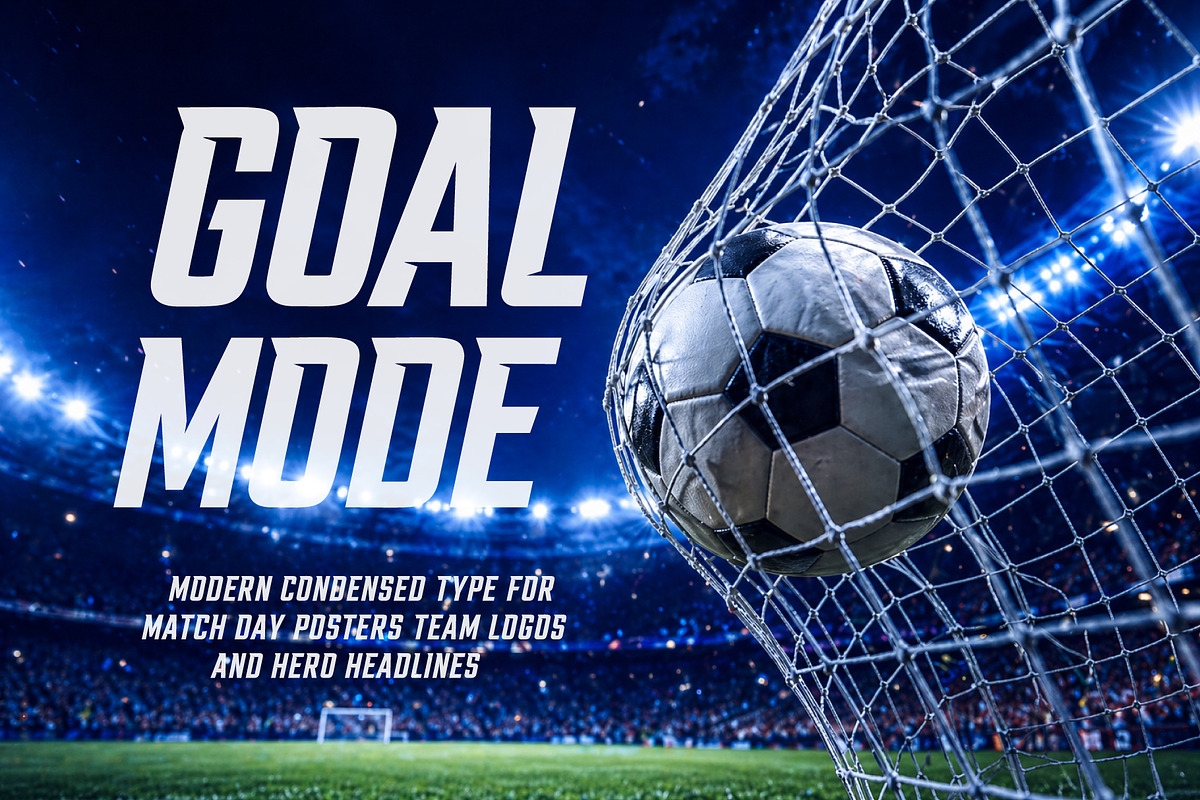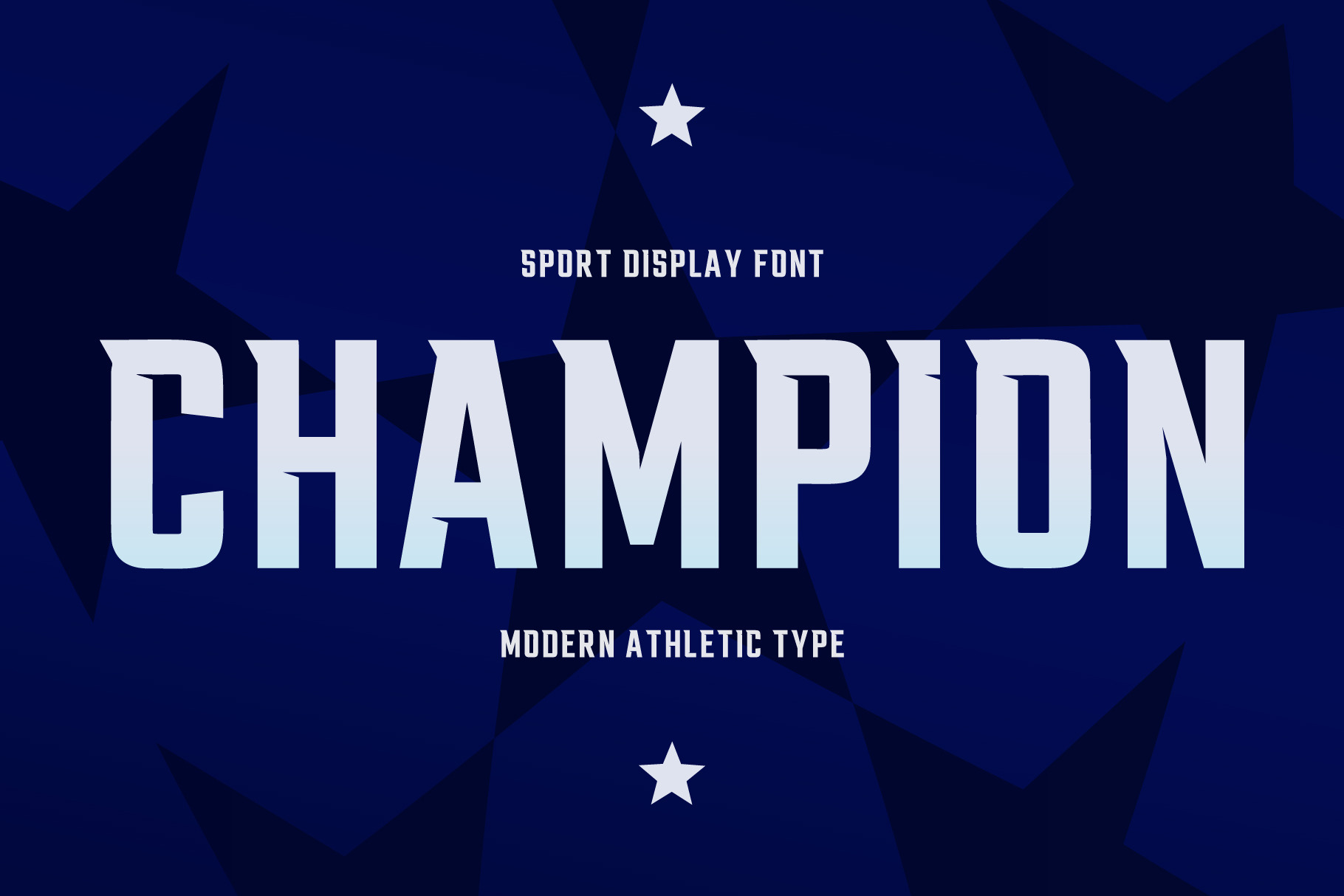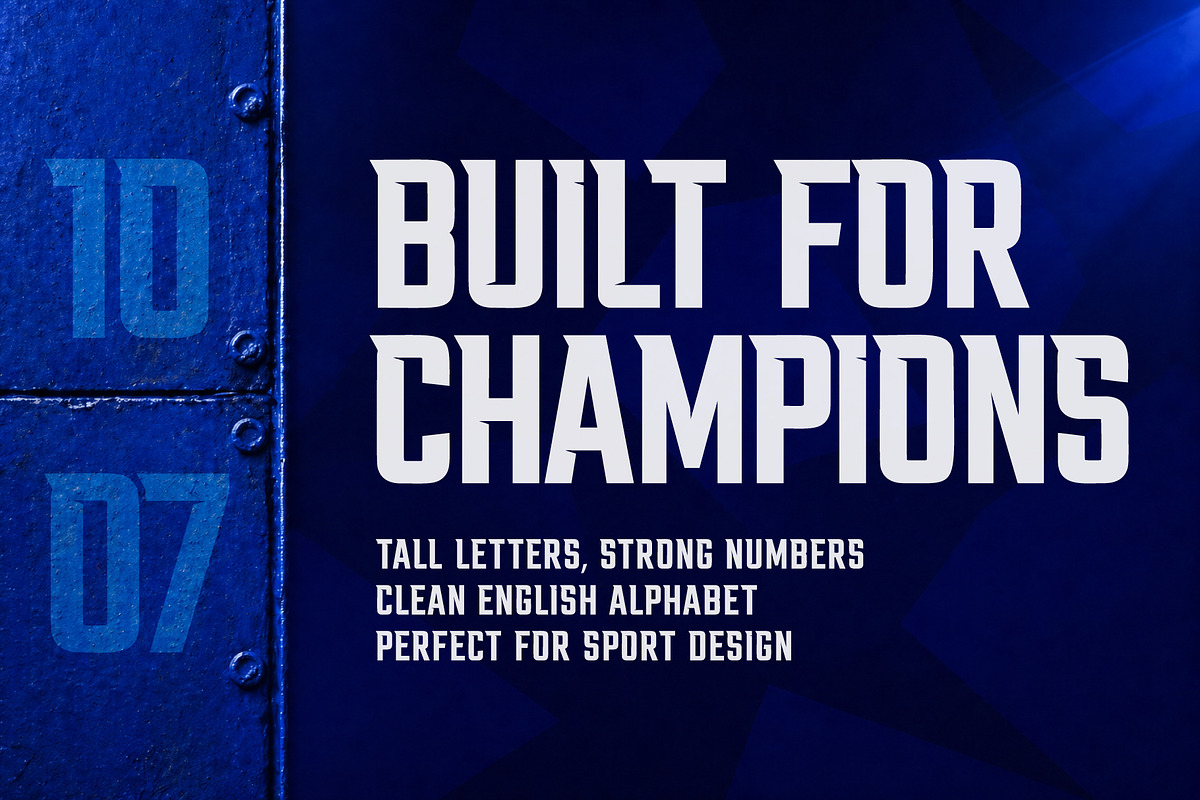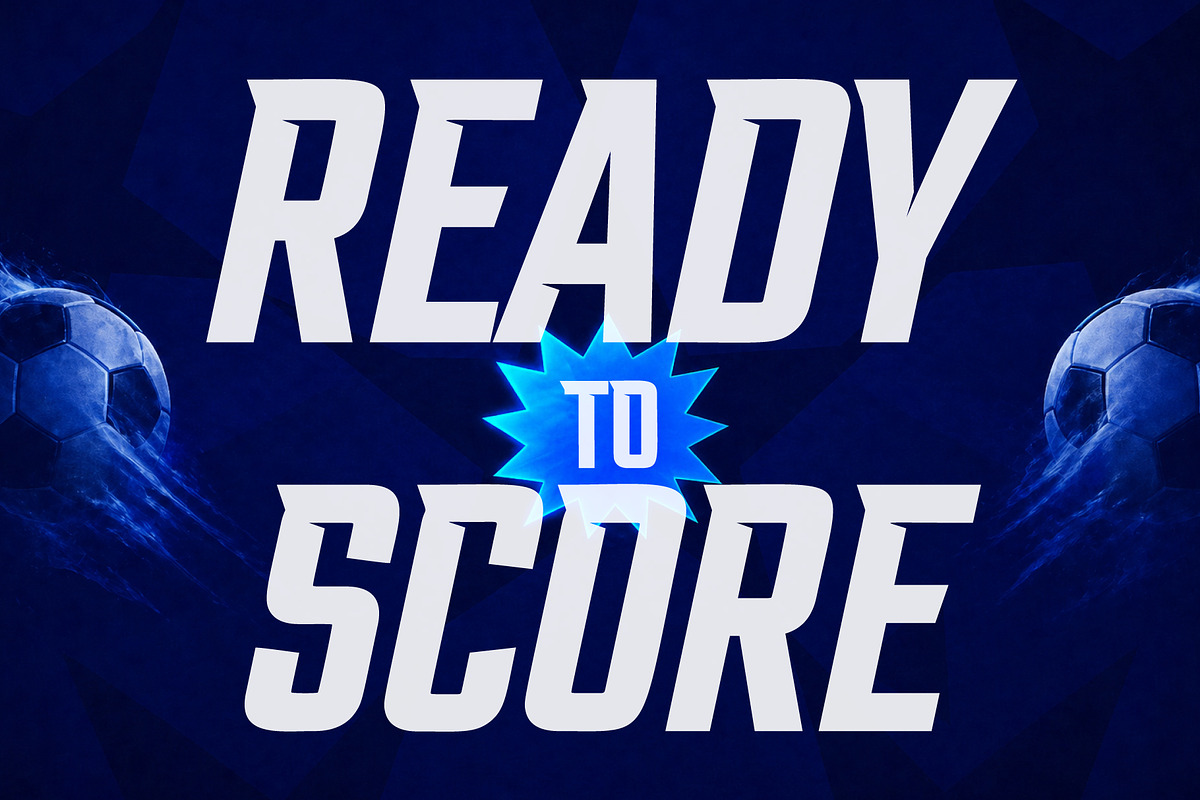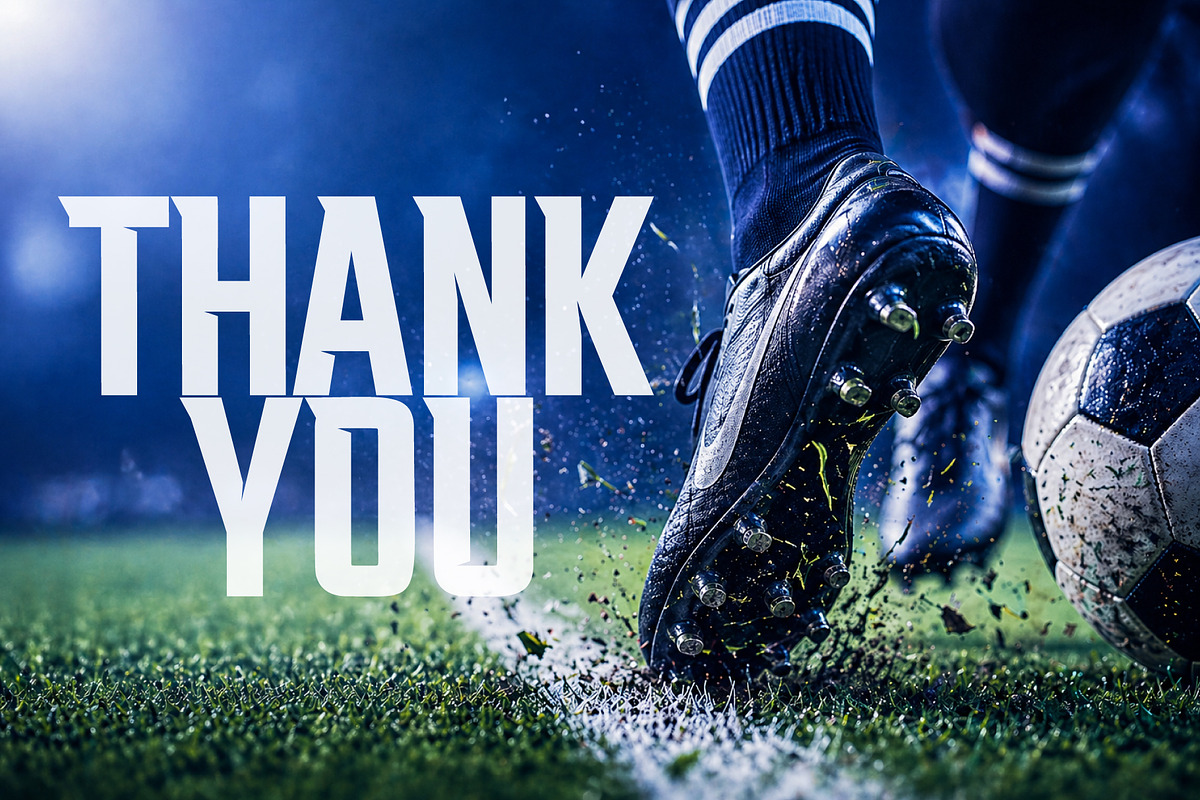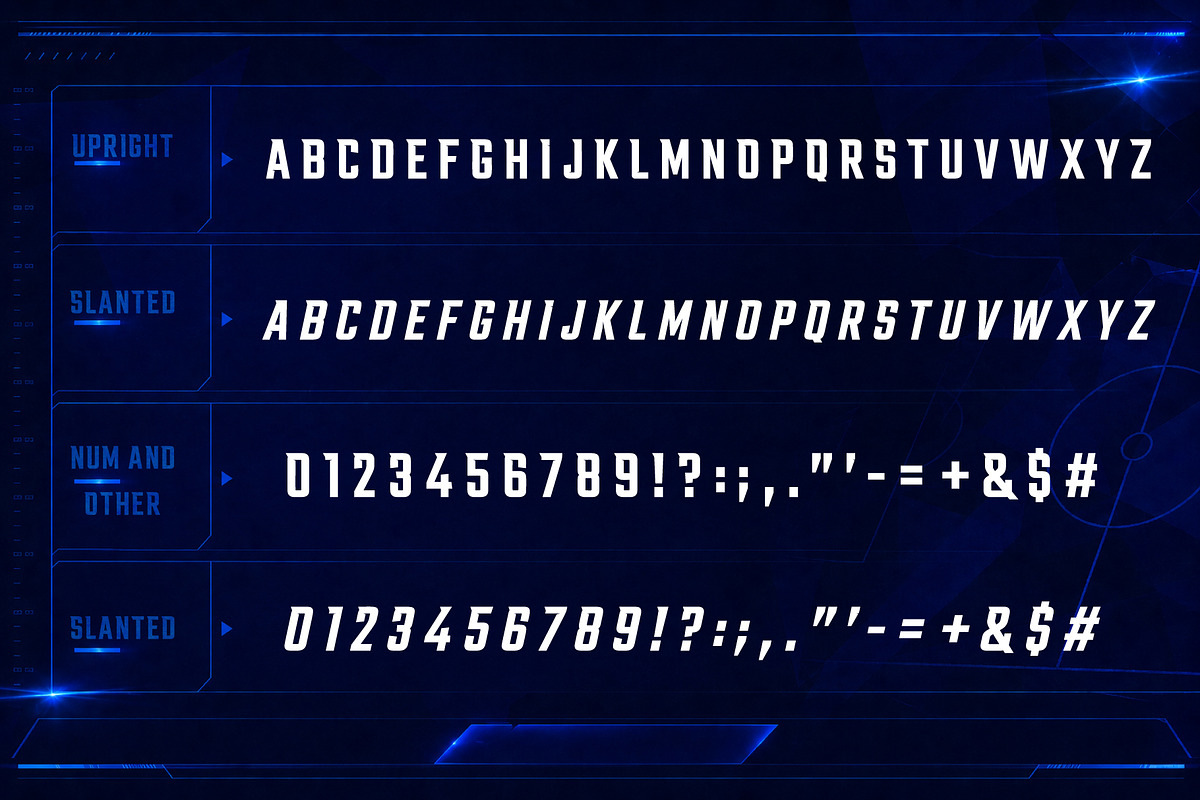
New Champion Font
New sport display font with upright and 12° slanted styles
Champion is a bold condensed sport display font built for football graphics, athletic branding, and powerful title design. With tall narrow proportions, sharp geometric cuts, and a strong championship attitude, this font brings energy, speed, and confidence to every visual.
Designed for match-day posters, soccer logos, team identities, jersey numbers, stadium signs, and modern competition graphics, Champion gives your typography a clean professional sport look. Use the upright style for strong athletic headlines, or switch to the 12° slanted style for a faster and more dynamic football feel.
Ideal For:
- Football and soccer branding
- Match-day posters and sport flyers
- Team logos and club identity
- Jersey names and numbers
- Athletic apparel and merchandise
- Competition graphics and tournament titles
- Esports, gaming, and fitness visuals
- Bold headlines, signs, and social media posts
- Upright uppercase alphabet
- Slanted uppercase alphabet at 12°
- Upright numbers
- Slanted numbers at 12°
- Symbols and punctuation